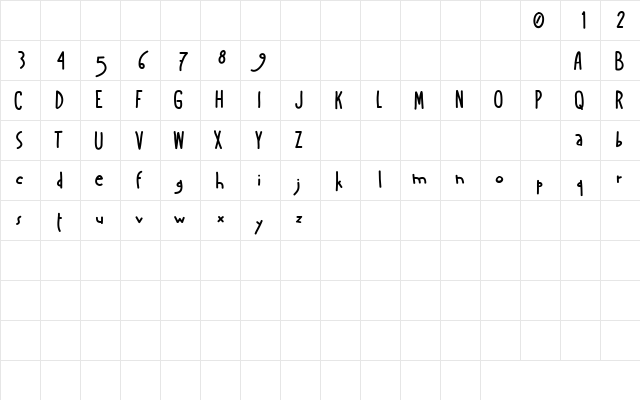
Complete AManoBoldensada glyph index. Displaying only characters natively supported by AManoBoldensada font.
AManoBoldensada is a composed and adaptable typeface that performs quietly and consistently across a wide range of design contexts. Its bold stroke weight gives it real presence on the page.